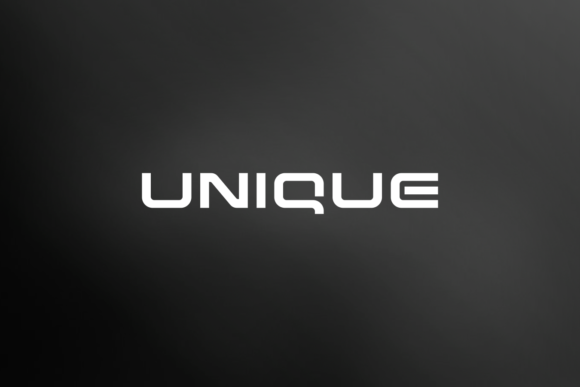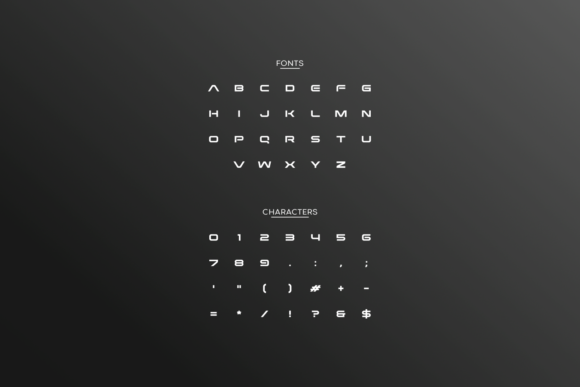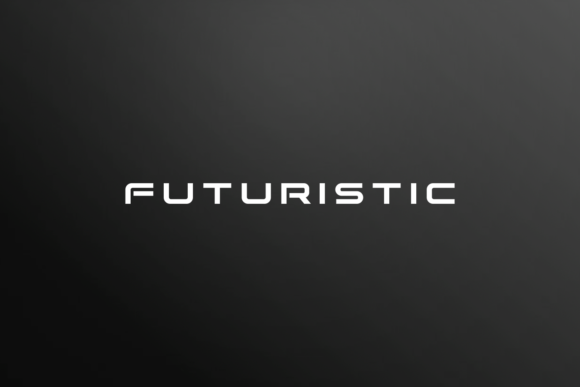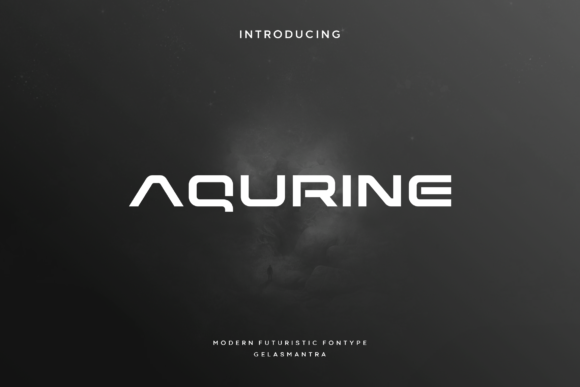
Aqurine Font: Elevate Your Designs with a Modern, Elegant, and Futuristic Touch
In the world of typography, fonts play a crucial role in conveying the tone and aesthetic of a design. For designers and crafters looking to add a unique touch to their work, Aqurine Font is an excellent choice. This modern, elegant, and futuristic font is perfect for a wide range of applications, from web designs and business cards to branding and advertising materials.
The Aqurine Advantage: A Sophisticated Concept
Aqurine Font boasts a sophisticated concept that sets it apart from other fonts. Its elegant shape and sleek lines give it a modern look that’s perfect for future technology designs. The font’s unique character set and futuristic feel make it an ideal choice for designers who want to create a lasting impression. Whether you’re working on a website, a brochure, or a business card, Aqurine Font is sure to elevate your design to the next level.
Key Features of Aqurine Font
- Modern and Elegant Design: Aqurine Font features a sleek and sophisticated design that’s perfect for modern designs.
- Futuristic Look: The font’s futuristic feel makes it ideal for technology-related designs and futuristic concepts.
- Unique Character Set: Aqurine Font has a unique character set that sets it apart from other fonts.
- Highly Versatile: The font is suitable for a wide range of applications, from web designs and business cards to branding and advertising materials.
Why Choose Aqurine Font?
There are many reasons why designers and crafters should choose Aqurine Font for their projects. Here are a few:
- Stand Out from the Crowd: Aqurine Font’s unique design and futuristic feel make it an excellent choice for designers who want to stand out from the crowd.
- Perfect for Modern Designs: The font’s modern and elegant design make it perfect for modern designs and futuristic concepts.
- Easy to Read: Aqurine Font is highly legible, making it easy to read and understand.
- Use it for Headings and Titles: The font’s elegant design makes it perfect for headings and titles.
In conclusion, Aqurine Font is a modern, elegant, and futuristic font that’s perfect for designers and crafters looking to add a unique touch to their work. Its sophisticated concept, elegant shape, and highly versatile design make it an excellent choice for a wide range of applications. Whether you’re working on a website, a brochure, or a business card, Aqurine Font is sure to elevate your design to the next level.